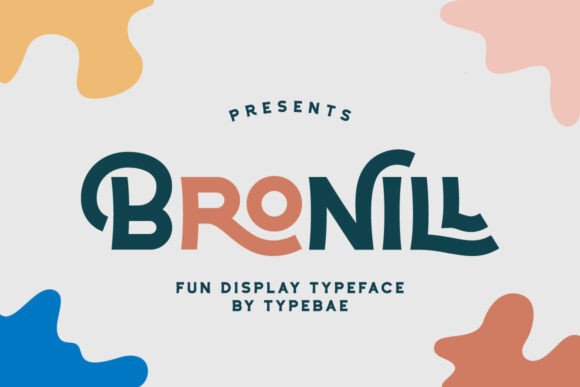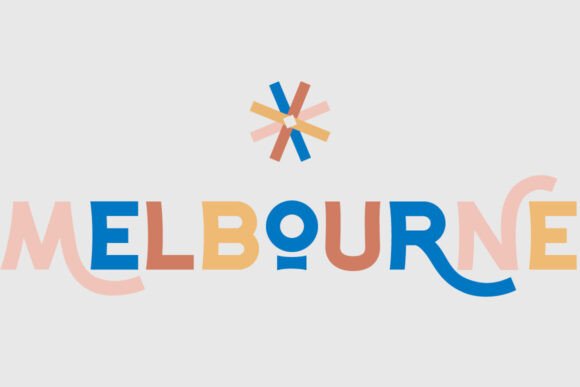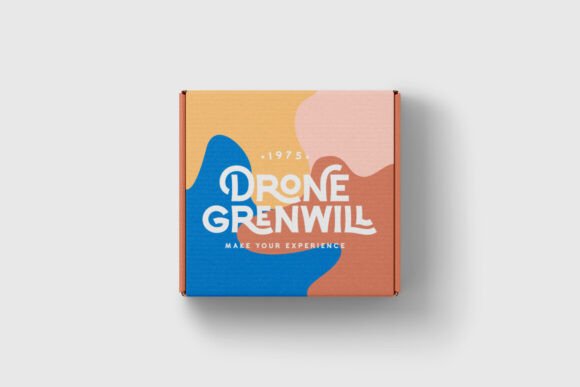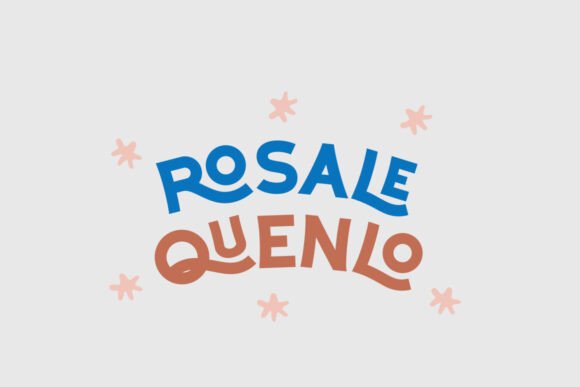
Bronill Font: A Playful Display Font for Cute DIY & Branding Projects
About the Bronill Font
From logos to headlines, the Bronill Font is the perfect choice for making a lasting impression. Bronill is a lively and fun display font with unique ligatures and quirky letterforms. Perfect for playful designs, branding, and creative projects, it adds a cheerful touch to any design. Whether for logos, posters, or children’s products, Bronill brings joy and personality to your work!
Bronill thrives in display contexts such as headlines, logos, short taglines, and posters where its playful character shines. Its unique ligatures add visual interest, but the quirky letterforms are less suitable for body text or UI elements requiring high readability. Avoid using it for large blocks of text or applications demanding clear legibility at small sizes.
The font’s friendly and slightly whimsical personality pairs well with clean sans-serif fonts like Open Sans for a balanced contrast, or a more geometric sans-serif like Futura for a modern feel. For a touch of elegance, consider pairing Bronill with a classic serif like Garamond, using Bronill for headlines and Garamond for supporting text.
Bronill’s core personality is undeniably playful and cheerful, making it ideal for brands targeting younger audiences or projects with a lighthearted, fun aesthetic, such as children’s books, toy packaging, or social media campaigns.
Bronill Font Usage Examples
Bronill Font Example